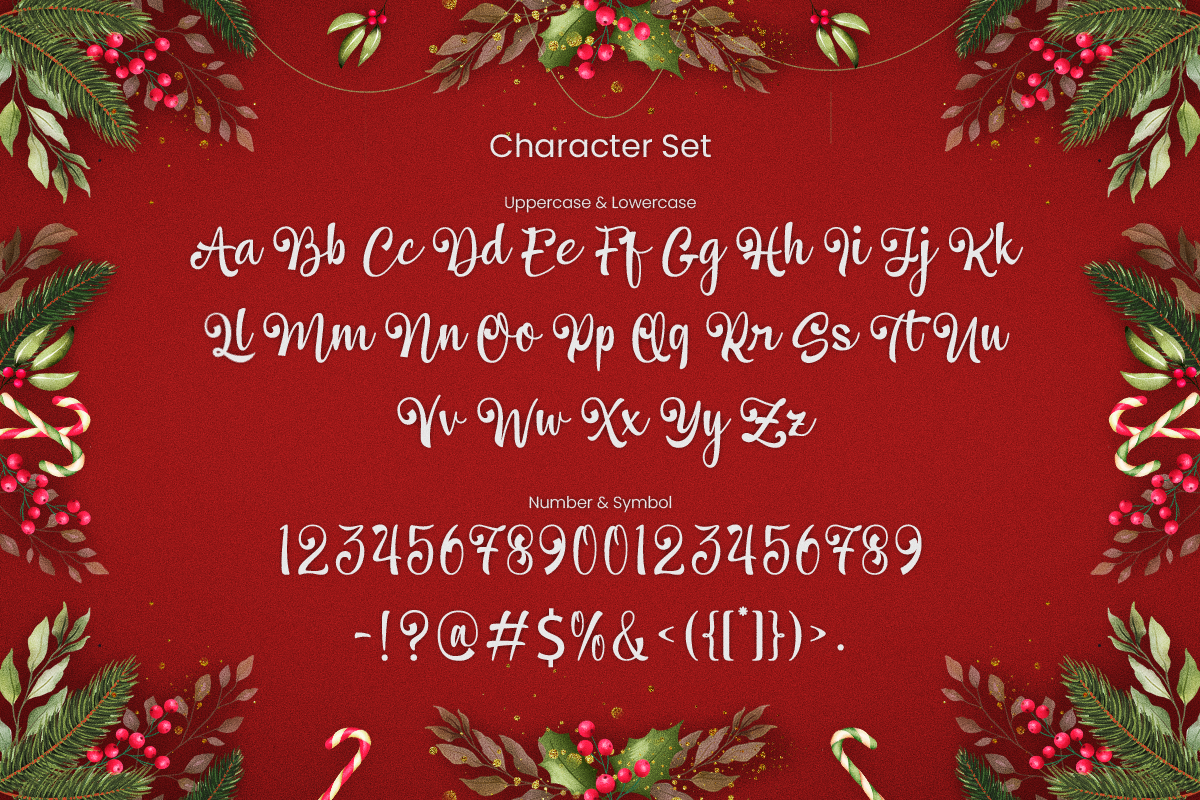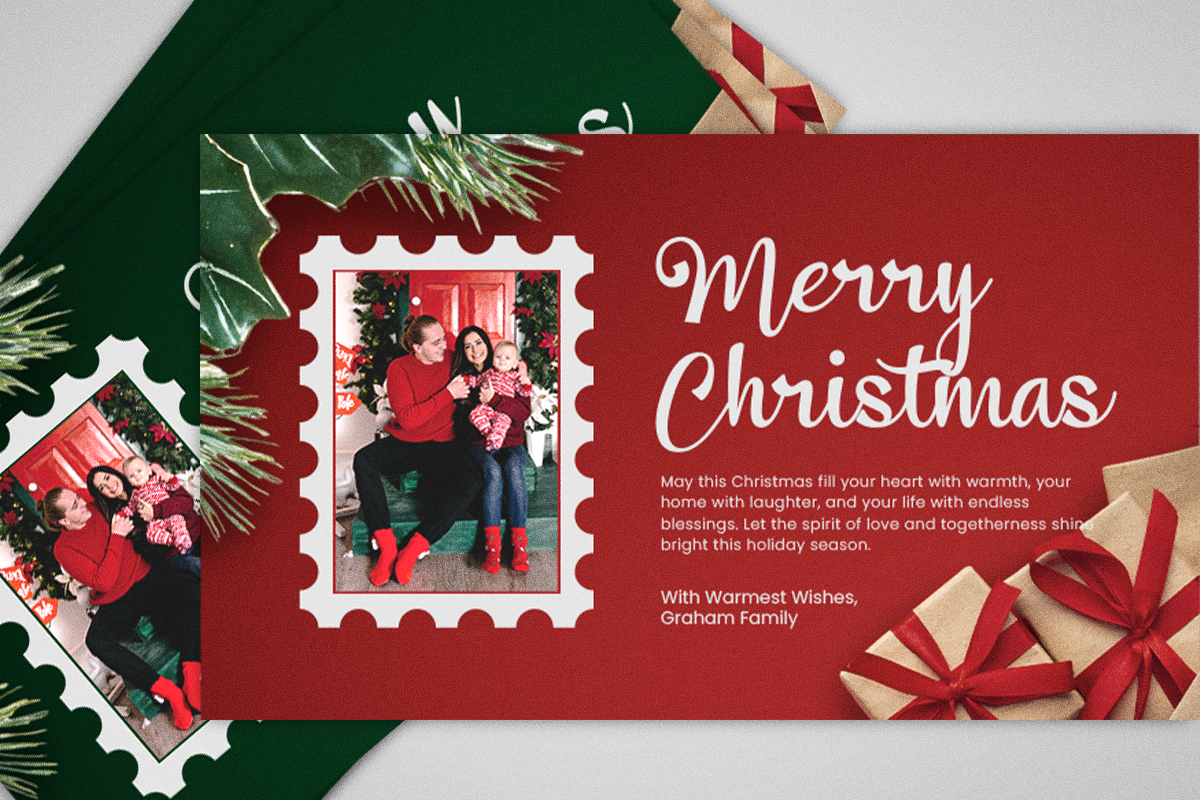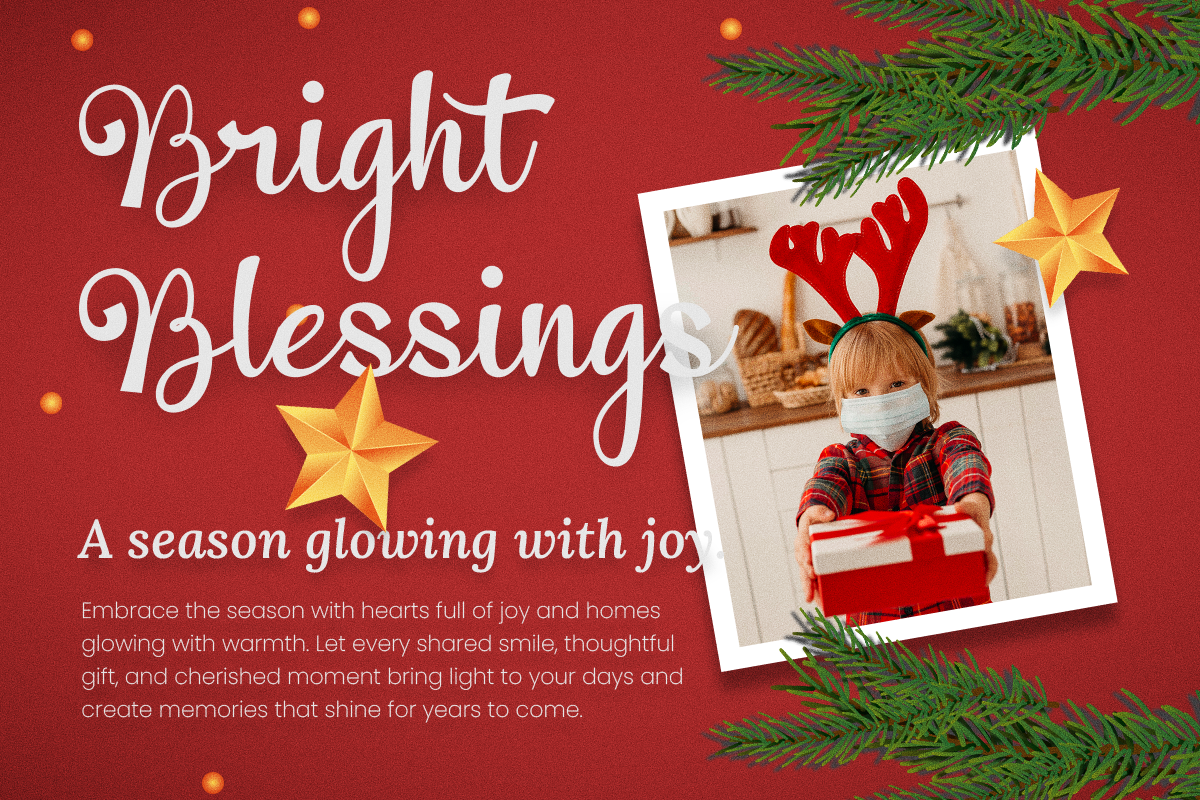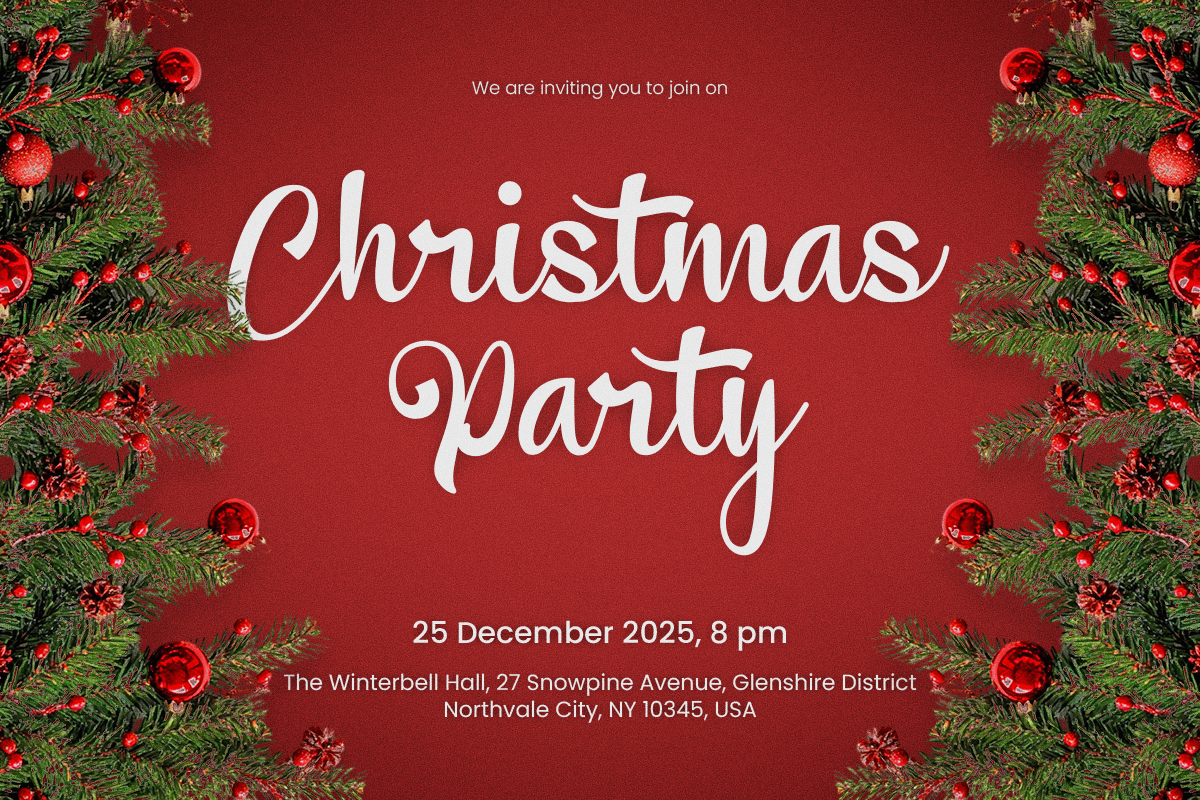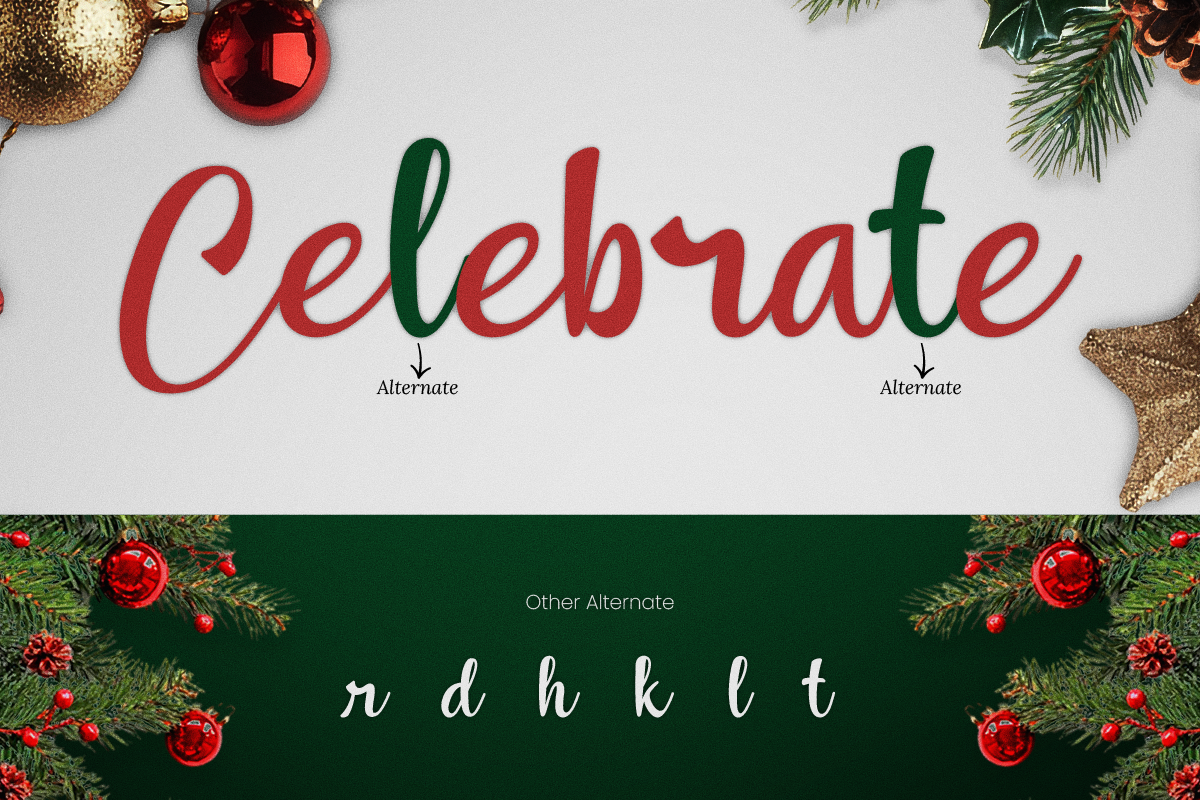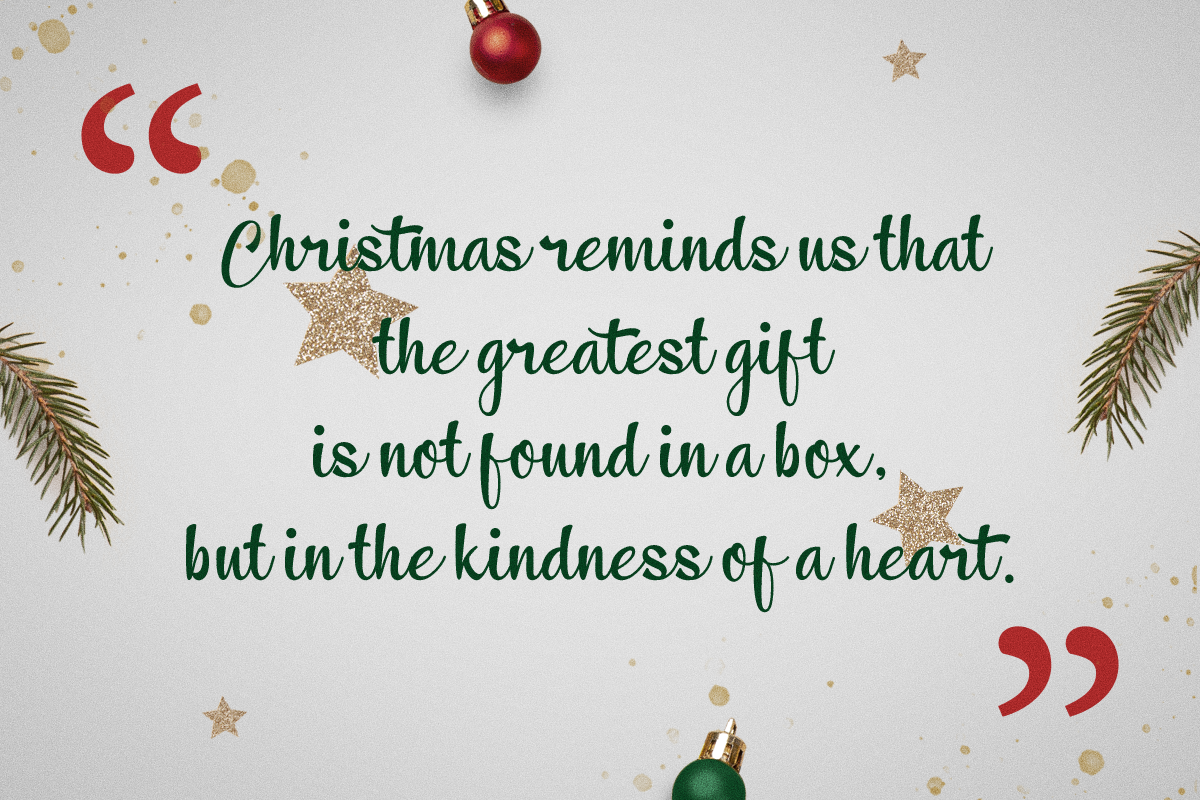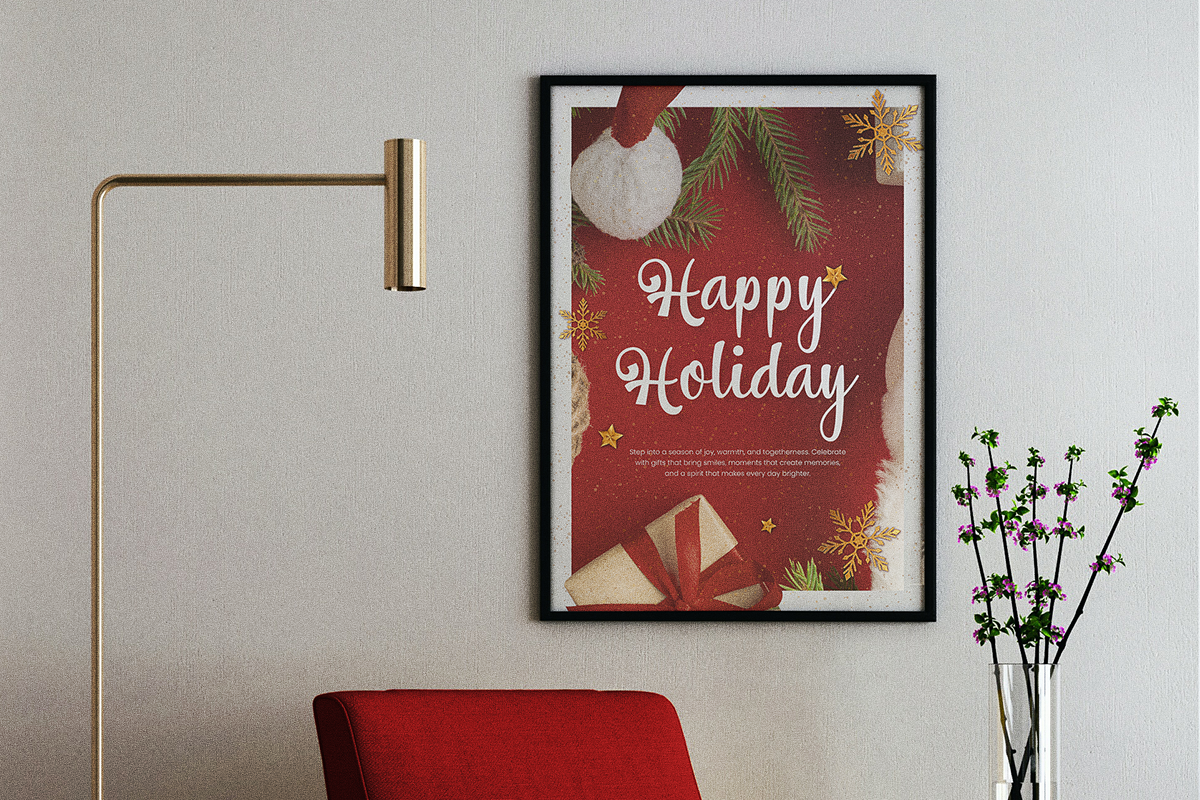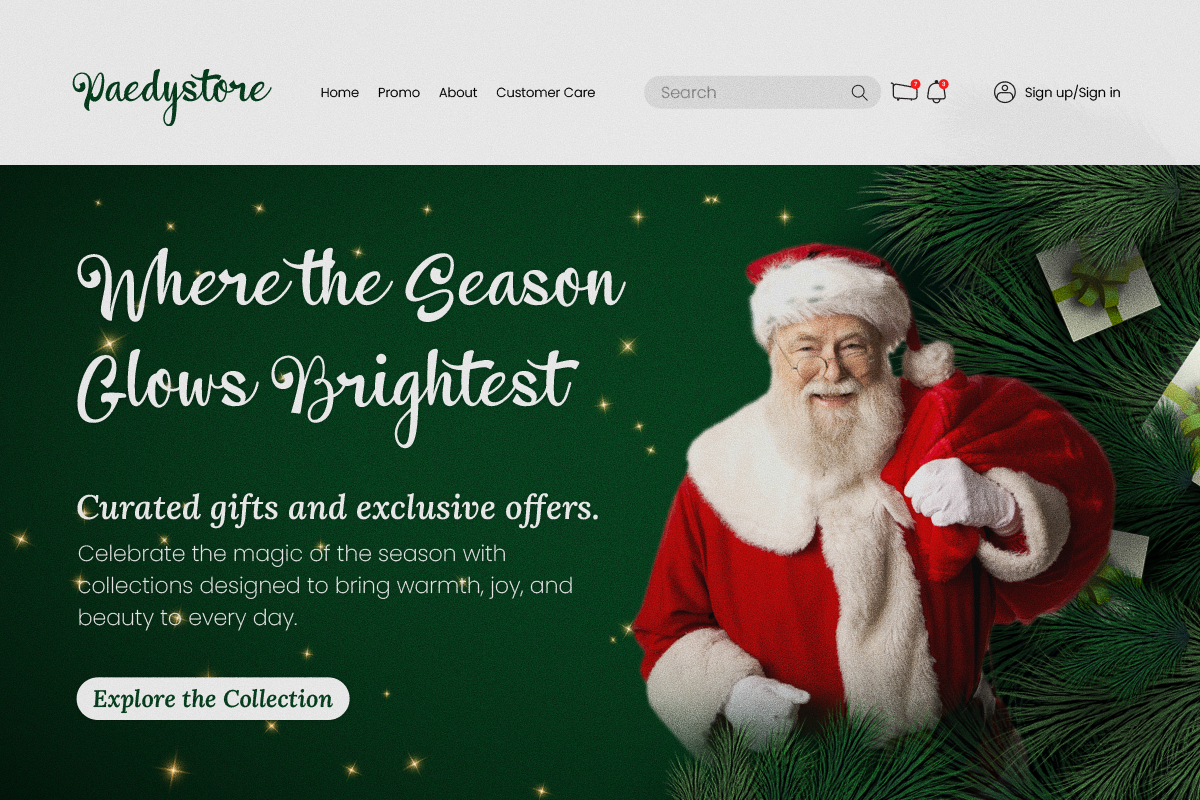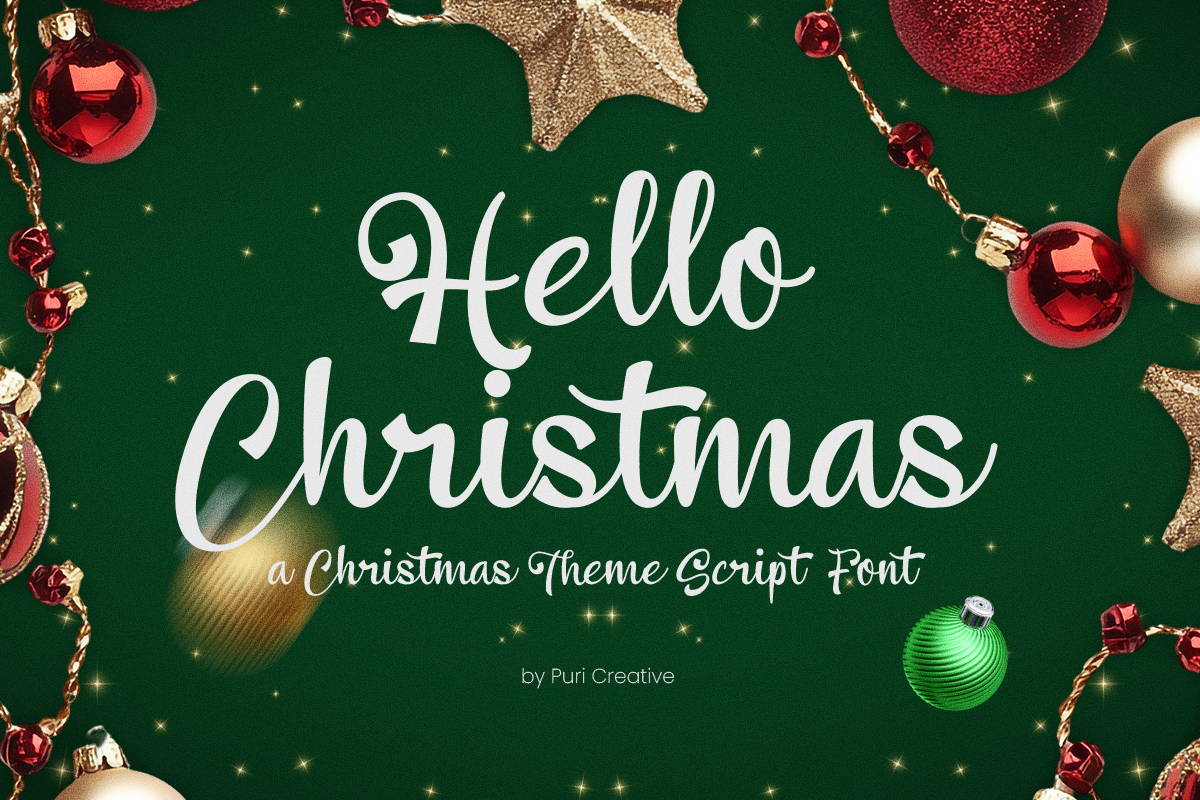
Hello Christmas - Sweet Script Font
Hello Christmas - Sweet & Beautiful Script Font with a handwritten style make this font looks elegant, natural, stylish.
The font would perfect for handcrafted, craft, invitation, logos & branding , photography, advertisements, watermark, social media posts, product packaging, product designs, label, wedding designs, stationery, special events or anything that need handwriting taste.